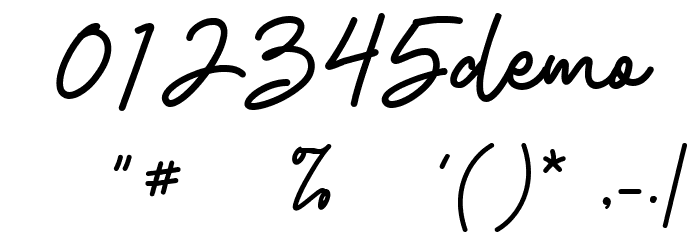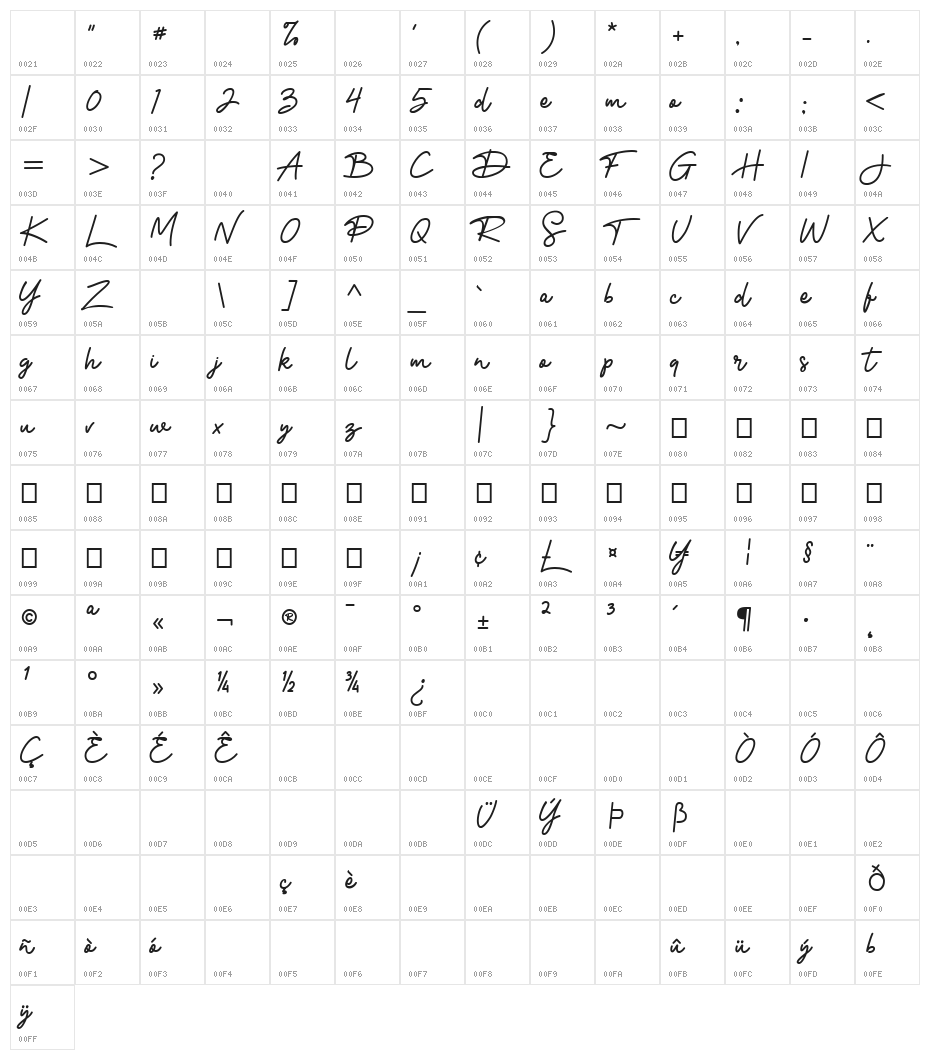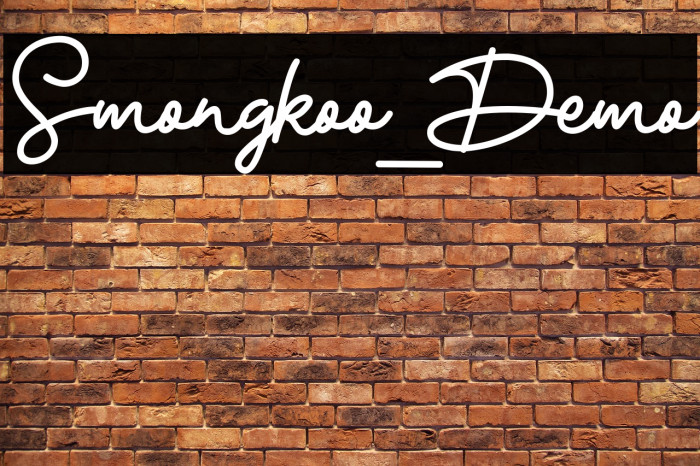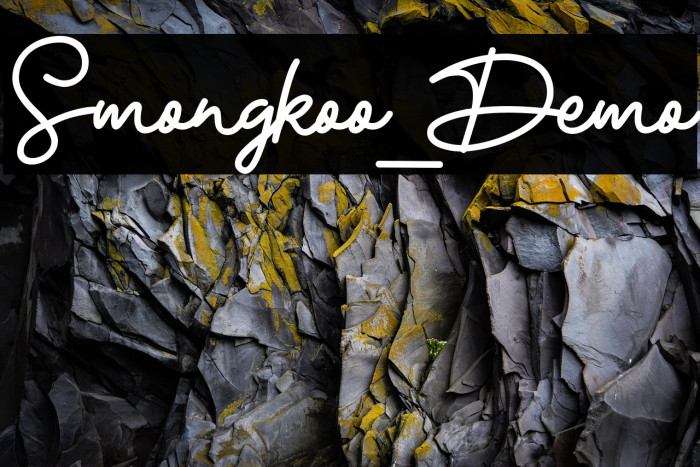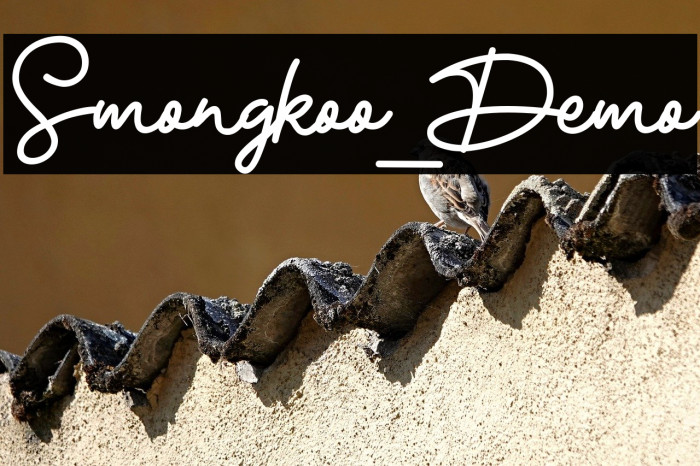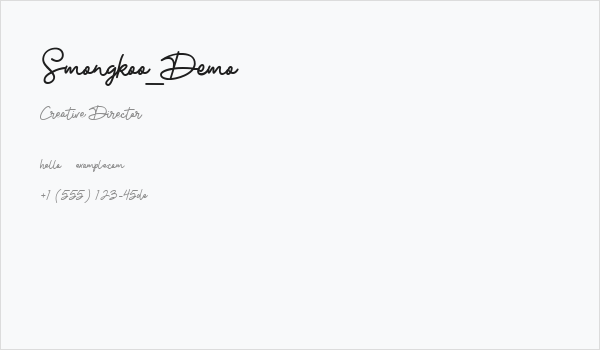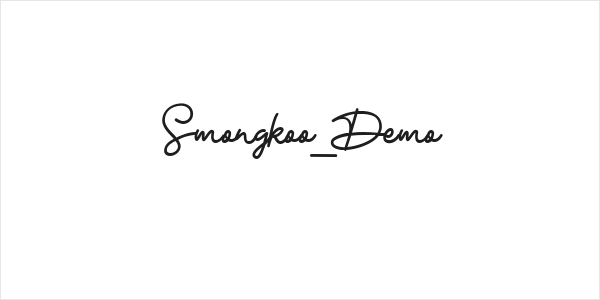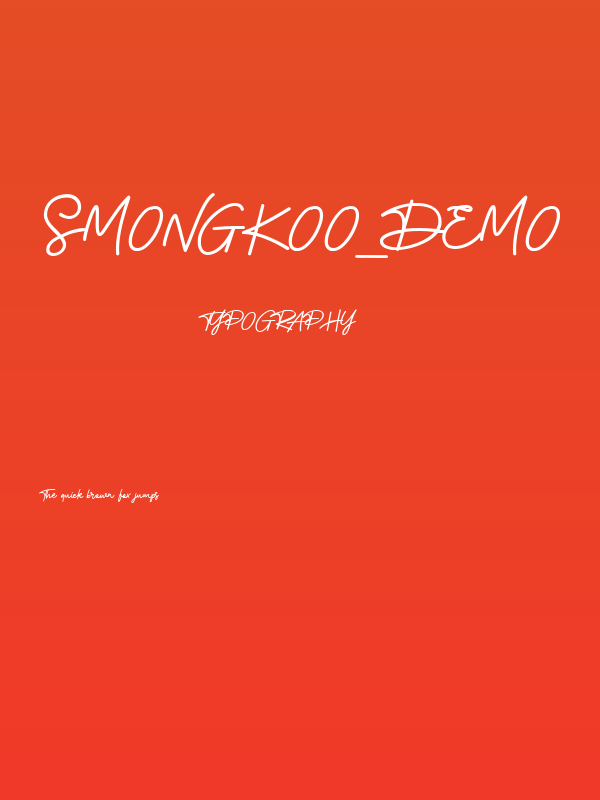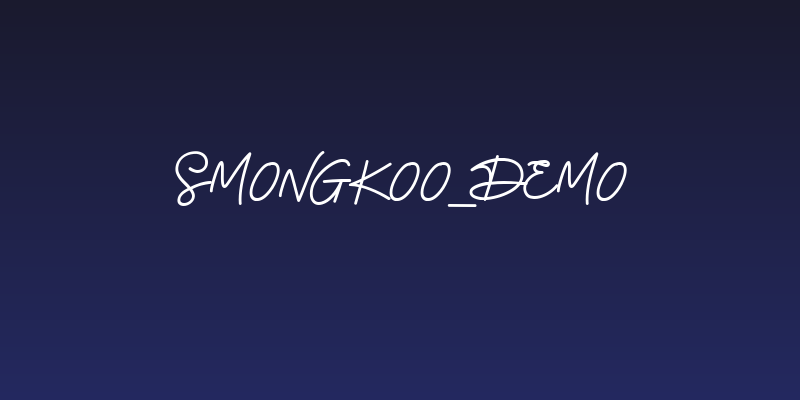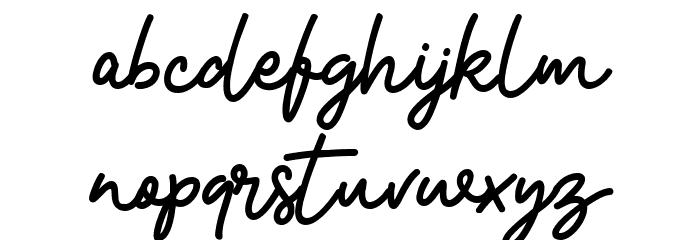
Smongkoo_Demo Font
Smongkoo_Demo Description
This font exudes a casual and elegant handwritten style, characterized by smooth, flowing strokes that mimic natural handwriting. The uppercase letters maintain a consistent height with a slight slant, adding a dynamic feel. The lowercase letters are well-balanced, with rounded forms that enhance readability. Numbers and special characters are crafted with the same fluidity, ensuring a cohesive look across all text. The overall appearance is both approachable and sophisticated, making it suitable for a variety of design needs.
Use CaseLogos, Headlines, Invitations
Proposed ProjectsIdeal for wedding invitations, personal branding, greeting cards, and social media graphics.